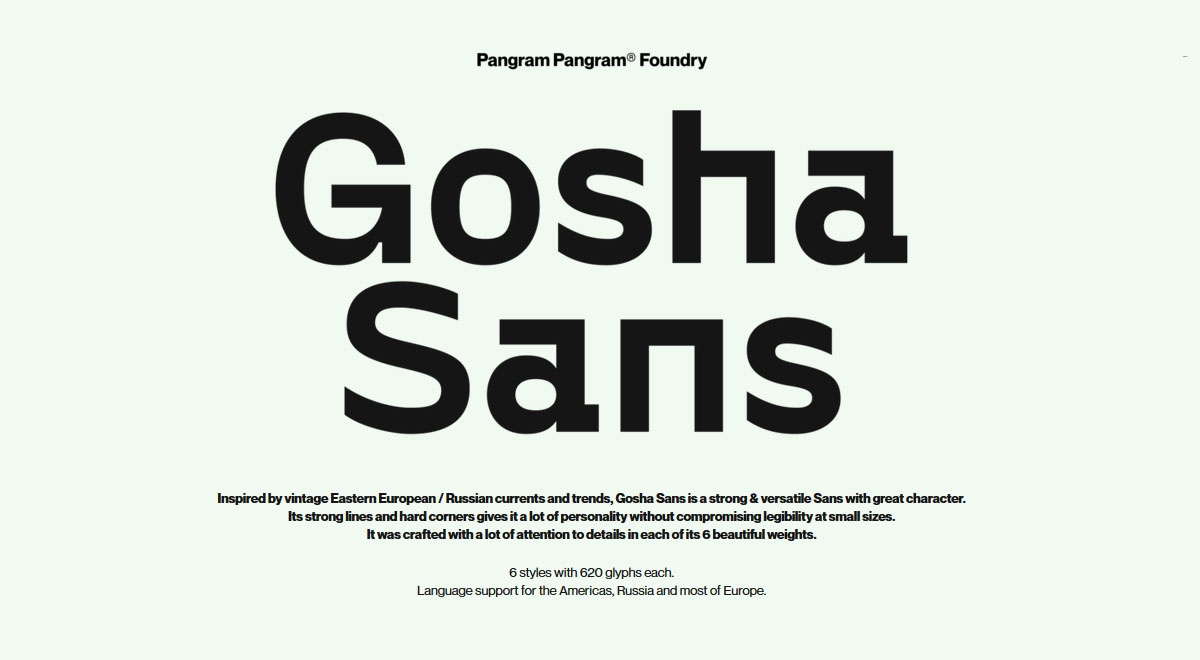
Gosha Sans Font
Gosha Sans Font is perfect for tech startups, modern websites, mobile applications, corporate presentations, minimalist branding, digital interfaces, contemporary logos, clean advertising campaigns, software documentation, and progressive business materials.
What makes Gosha Sans Font exciting is its modern geometric precision that perfectly captures contemporary design trends and digital-first aesthetics. This innovative sans-serif typeface combines clean lines with subtle character that creates excellent readability across all digital platforms. The font's minimalist approach and technical precision make it ideal for brands seeking to communicate innovation, efficiency, and forward-thinking values in today's competitive marketplace.
The Gosha Sans Font family includes Thin, Light, Regular, Medium, Semi-Bold, Bold, Extra Bold, and Black variants. Each weight maintains the font's geometric consistency while offering comprehensive typographic flexibility for complex brand systems and diverse digital applications.
Whether you're developing tech brand identities, creating user interfaces, designing corporate materials, or building digital marketing campaigns, Gosha Sans Font delivers unmatched versatility and clarity. Its technical precision makes it perfect for software companies, digital agencies, consulting firms, and innovative startups seeking distinctive modern presence.
The font's geometric foundation and optimized spacing ensure exceptional performance in both digital and print environments. Each letterform has been carefully engineered to maintain perfect legibility at any size while preserving the font's distinctive modern character and professional appearance.
This comprehensive typeface excels in complex typographic hierarchies, offering designers the flexibility needed for comprehensive brand identity systems. The extensive character set includes mathematical symbols, technical characters, and international language support for global technology markets.